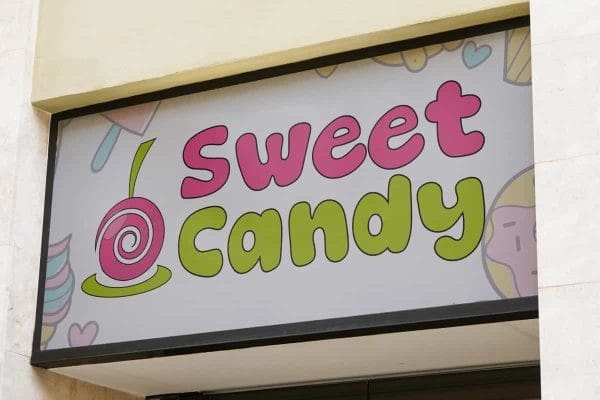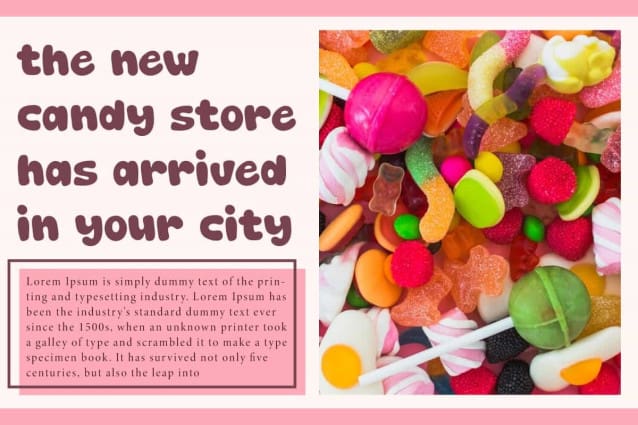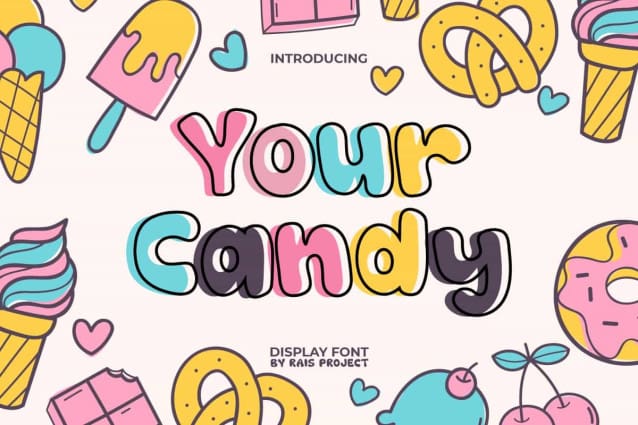
Your Candy Font
Your Candy is a playful cute comic display font with candy theme, by RaisProject. This font can give an adorable look and beautify your design, such as book cover, brand image, menu, poster, signage, website page, and more!
Your Candy Font includes a full set of Uppercase and Lowercase Letters, Numerals, and large range of Punctuation. This lovely font will be suitable for various industries, such as animation, cafes, cartoon, comic, event or festival, fashion, game, printing, publishing, etc.